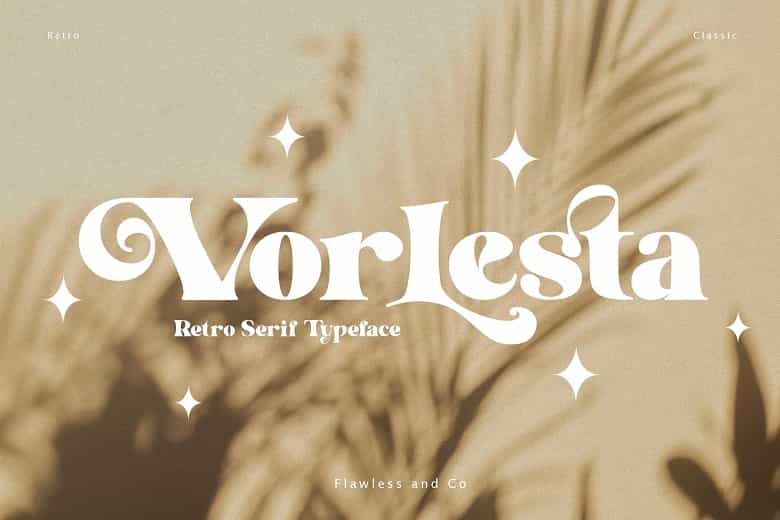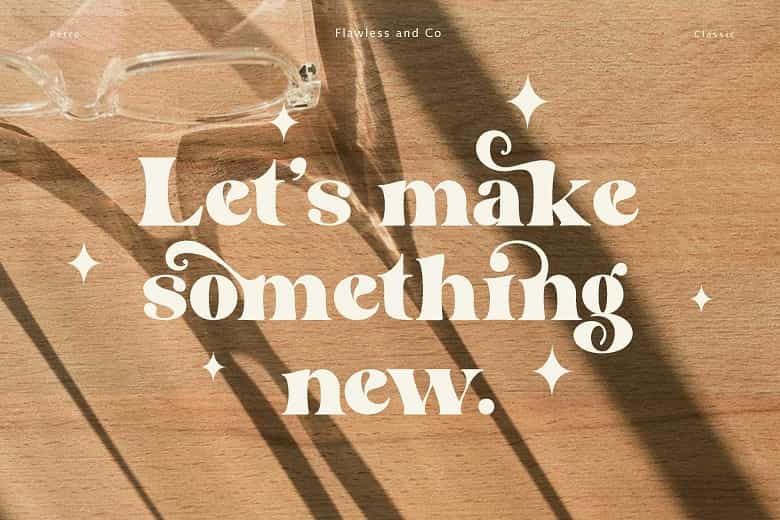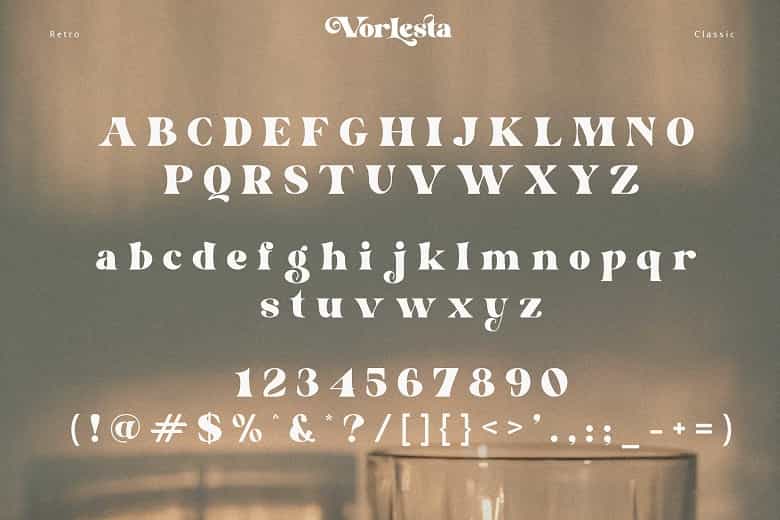
Vorlesta is a new modern retro serif font with a playful and a bold look that will suit best for your projects that has a boho style like poster design, branding, t-shirts, business cards, logos, photography, quotes and many more. Why not to use some other characters for the next visual output?